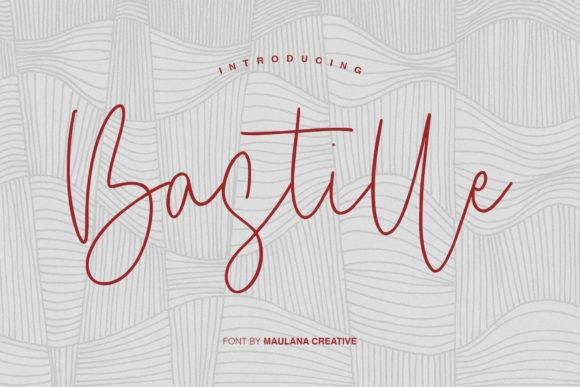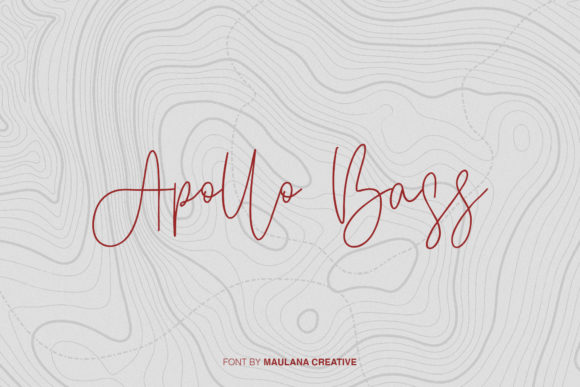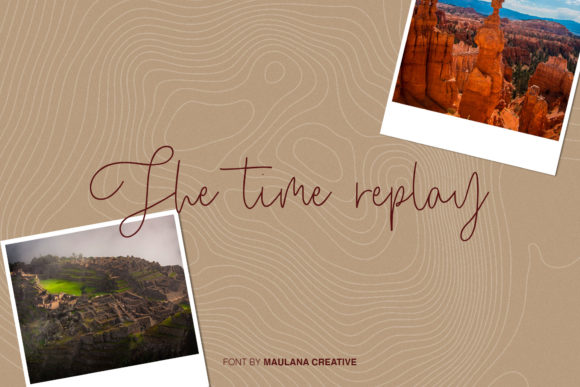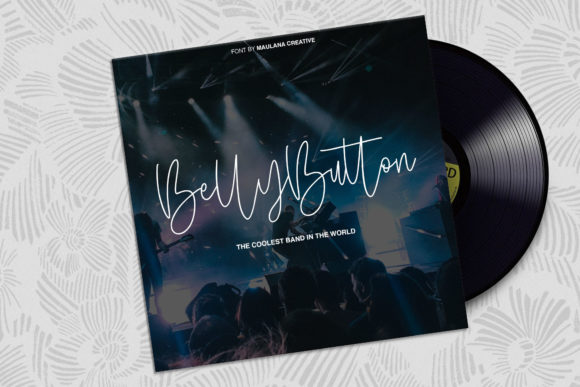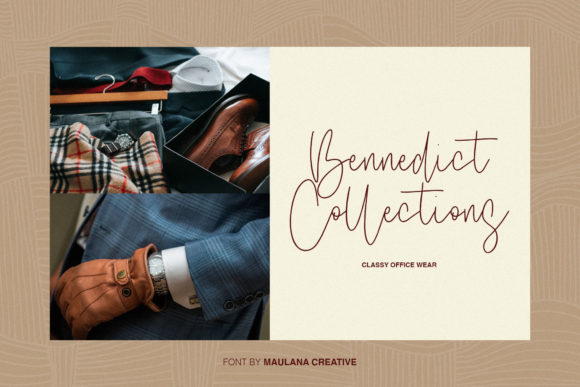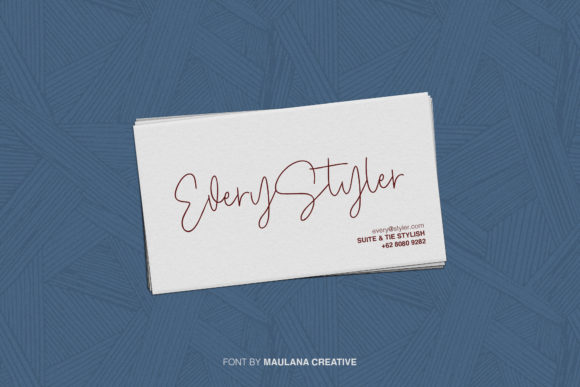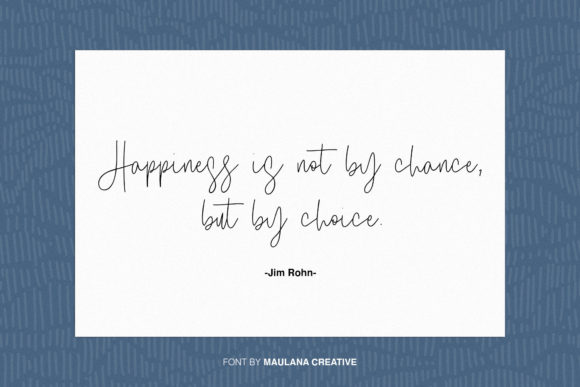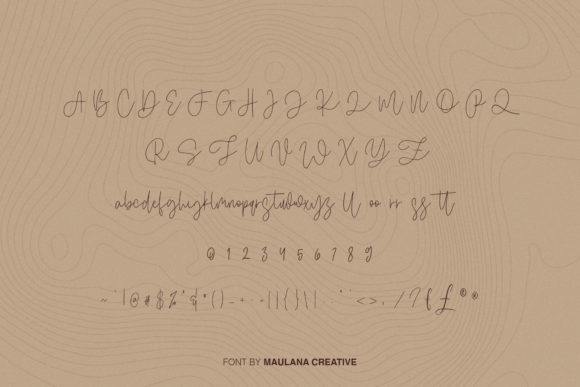
Bastille Font
About Bastille Font
Bastille is your go-to font for branding projects, logos, wedding designs, social media posts, advertisements, product packaging, product designs, labels, photography, invitations, and any project in need of that authentic playfulness.